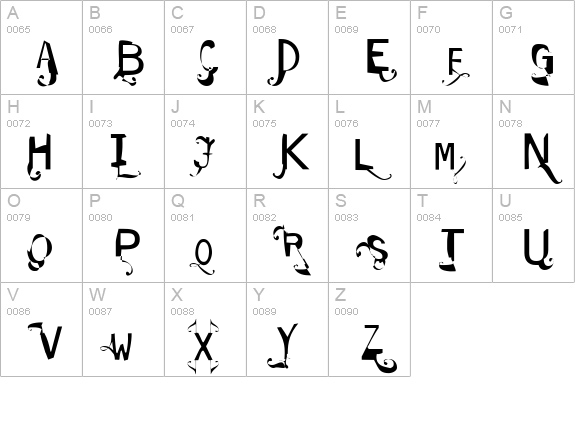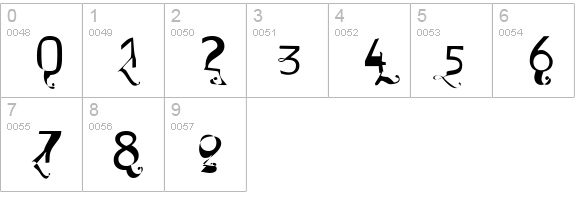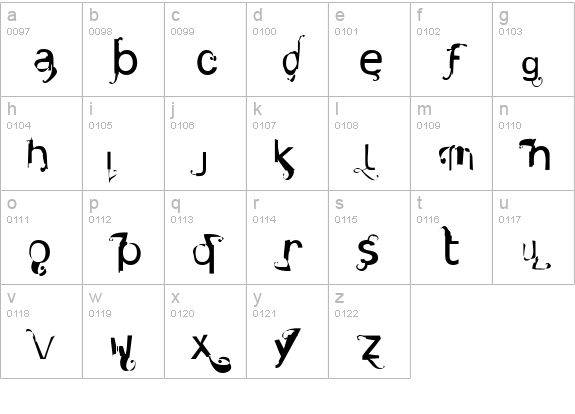
Dysphasia Font Details
Dysphasia font is a unique and versatile typeface that combines elegant curves with a modern aesthetic. Designed to make a statement, this font is perfect for branding, logos, headlines, and more. With its sleek and sophisticated design, Dysphasia font adds a touch of sophistication to any project. The best part? Dysphasia font is completely free to download at FontsMarket.com. Whether you're a designer looking to add a fresh new font to your collection or a business owner in search of a standout font for your brand, Dysphasia font is the perfect choice. Don't miss out on this incredible opportunity to elevate your designs with this stunning font. Download Dysphasia font today and see the difference it can make in your projects!